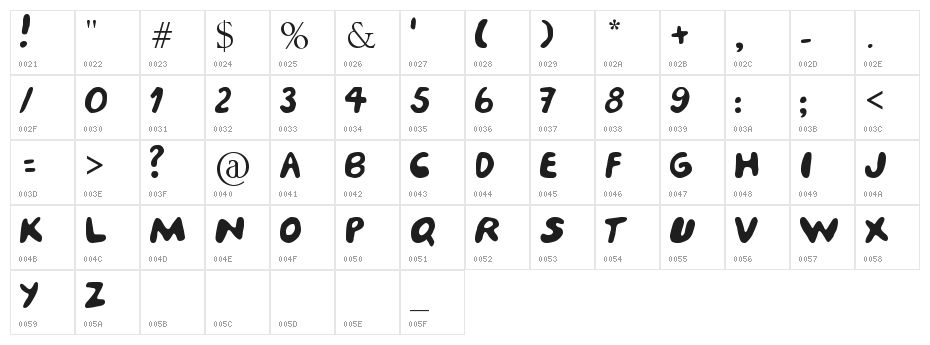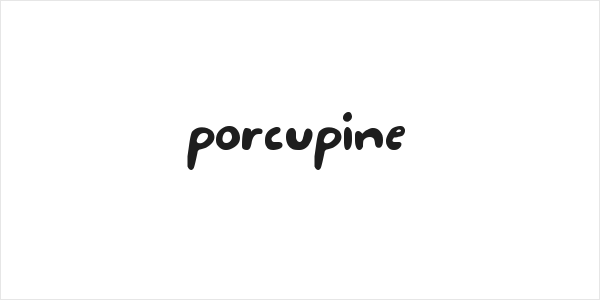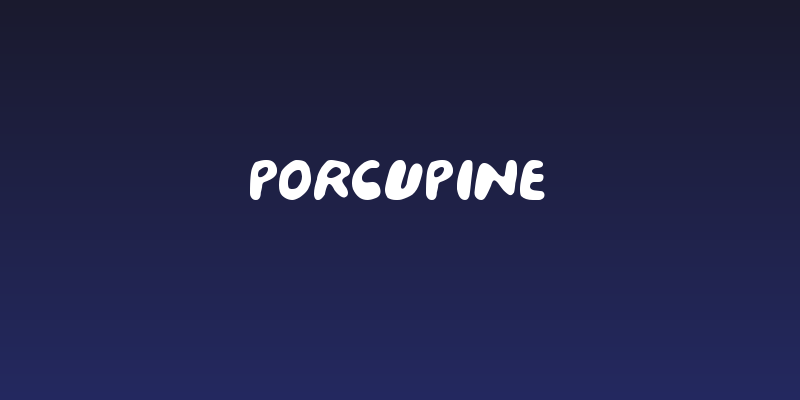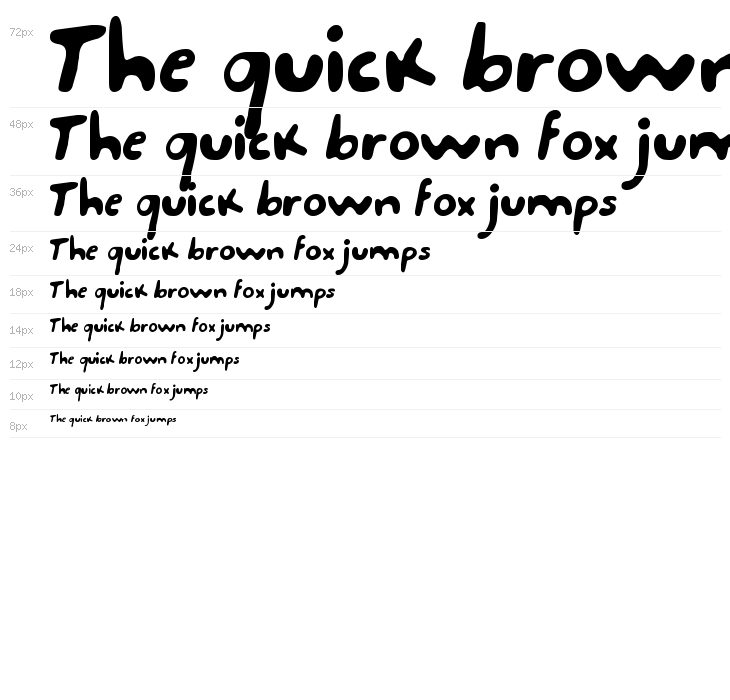
porcupine Font
porcupine Description
This font features a playful and bold design with rounded, bubbly characters that convey a sense of fun and whimsy. The letters are thick and have a consistent stroke width, giving them a strong presence on the page. The overall style is informal and friendly, making it suitable for creative and casual applications. The characters have a slightly irregular shape, adding to the charm and uniqueness of the font. The numbers and special characters maintain the same playful aesthetic, ensuring a cohesive look across different types of content.
Overall StylePlayful
Proposed ProjectsIdeal for children's books, playful branding, party invitations, and creative posters.